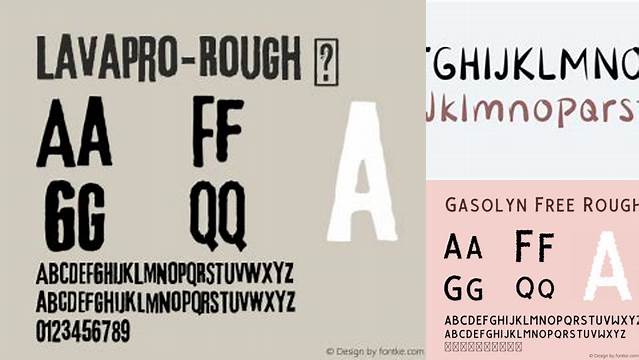
Lava Pro Rough Font Free Download: A Complete Guide
Lava Pro Rough Font, a captivating typeface, has become a popular choice for designers and creatives seeking a bold and textured aesthetic. This article will delve into everything you need to know about the Lava Pro Rough font, including its features, how to get it through a free download, and how to effectively use it in your projects. We will also touch on the font's licensing, alternative options, and some design tips to help you make the most of this unique font. So, if you're looking to give your designs a rugged and visually striking appeal, keep reading, guys!
What is Lava Pro Rough Font?
Lava Pro Rough Font is a distinctive font known for its textured and distressed appearance. This typeface is a variation of the original Lava Pro font, but it features a rough, uneven texture that adds a sense of grit and authenticity to any design. The font's design incorporates elements of industrial and vintage styles, making it suitable for a wide range of creative projects. It's like the cool, edgy cousin of the regular Lava Pro. The rough texture gives it a unique character that can instantly grab attention, whether it's on a poster, a website, or a piece of merchandise. This isn't your typical clean-cut font; it's got personality, a certain je ne sais quoi that speaks volumes. Think of it as the leather jacket of the font world – it adds a touch of rebellious charm to anything it graces. The Lava Pro Rough Font isn't just about aesthetics; it's about making a statement. It's about embracing imperfections and celebrating the raw, unfiltered side of design. This font is fantastic for anyone who wants their work to stand out and make a lasting impression. Its versatility allows it to be used in multiple applications, including headlines, logos, and body text. The distinctive design of the Lava Pro Rough font distinguishes it from other fonts, making it a favorite for projects where you want to express a bold and distinctive personality. This font is great for those who want to be more creative with their projects.
The Lava Pro Rough Font features a wide range of characters, including uppercase and lowercase letters, numbers, and punctuation marks. This comprehensive character set ensures that designers can use it effectively in various design projects without worrying about missing glyphs. This complete character set helps you easily create the text in your projects with all the elements you need. Its accessibility allows you to incorporate it into different types of design work and achieve a unified and professional appearance. The Lava Pro Rough Font is more than just a bunch of letters; it's a complete set of tools designed to give you the creative freedom you deserve. Its comprehensive character set ensures that designers can use it effectively in various design projects without worrying about missing glyphs. It will not limit your ability to produce a beautiful design, from logos to website headers. You can use these fonts for your brand, your website, or any project you want to use. The Lava Pro Rough Font is a powerful tool for designers and creatives because it is flexible and provides the foundation for creativity.
Lava Pro Rough Font: Uses and Applications
Lava Pro Rough Font is a versatile typeface that can be used in various design projects to add a touch of boldness and character. Lava Pro Rough Font is a powerful tool that allows designers to inject personality and flair into their work. Its versatility allows it to be applied in various design projects to improve the overall aesthetic. From logos to website headers, this font can enhance your designs and help create a unique look and feel. Understanding the various applications of the Lava Pro Rough Font helps you unleash your creativity and develop unique designs. Whether you're working on branding materials, digital graphics, or print designs, the Lava Pro Rough Font offers endless possibilities. Because of its rugged appearance, it is perfect for projects that demand a striking and memorable visual style. It's also a great choice when you want to create a sense of authenticity and rawness. The font is useful in many projects, from creating unique logos to designing website headers and body text. Its versatility makes it suitable for use in many projects. The unique appearance of the Lava Pro Rough Font helps you make your projects stand out and leave a lasting impression.
Logo Design is one of the main areas where the Lava Pro Rough Font truly shines. Because of its strong and distinctive appearance, it is the perfect font to use in logos for businesses that want to communicate a strong and tough brand identity. The font's textured look adds a sense of ruggedness and authenticity, making it suitable for a wide range of industries. For example, it is an excellent choice for brands in the outdoor, adventure, and fashion industries. Its unique appearance can immediately establish your brand and grab people's attention. Using the Lava Pro Rough Font in logo design is a great way to express a brand's personality and uniqueness. The bold appearance of the Lava Pro Rough Font is a great way to improve brand recognition. Its distinctive appearance guarantees that your logo stands out from the competition. The Lava Pro Rough Font is a powerful design asset that gives your brand a competitive edge by enhancing brand identity and making a strong impression on your audience. The Lava Pro Rough Font is the ideal option for logo design, helping you to develop a brand that is memorable, tough, and unforgettable.
Website Headers and Titles are other areas where the Lava Pro Rough Font can be used to great effect. Using the font for website headers and titles can quickly draw visitors' attention and establish a strong visual hierarchy. The font's unique appearance makes it perfect for headlines that are meant to stand out, such as blog posts or page titles. Its textured appearance provides a visual appeal, making it an excellent option to create an impression and show the website's personality. In addition to drawing attention, using the Lava Pro Rough Font for website headers and titles can also help your website develop a consistent and eye-catching brand image. This font creates a memorable and coherent brand identity. With the Lava Pro Rough Font, you can transform any website header or title into a visual statement, making it more engaging and memorable. Its ability to draw immediate attention is important when trying to capture readers' interest on a website. This font gives websites a bold, contemporary look that attracts attention and helps them stand out from the competition. It is the perfect way to create website headers and titles that are aesthetically beautiful and promote a strong and recognizable online presence.
Design Tips for Using Lava Pro Rough Font
To effectively use the Lava Pro Rough Font in your design projects, consider these design tips. They help improve your use of this font and help you get the most out of your design. Understanding the nuances of the font will enhance your work. Make sure the use of the Lava Pro Rough Font complements your general design aesthetic.
Pairing Fonts is important. It is important to think about font pairing, which can help you create a cohesive and aesthetically pleasing design. This involves combining the Lava Pro Rough Font with other complementary typefaces to balance boldness and readability. You should select fonts that contrast nicely to achieve a visually pleasing outcome. Consider combining the Lava Pro Rough Font with a cleaner, simpler font for body text to improve readability. The combination of these fonts provides a clear visual hierarchy that helps guide viewers. When designing, you can use these combinations. This ensures that the boldness of the Lava Pro Rough Font does not overwhelm your design. Make sure that your designs look good by using the right font pairs. When selecting fonts, consider the design's overall tone. By matching the Lava Pro Rough Font with fonts that complement it, you can improve your designs and ensure they are visually appealing. This results in designs that are visually balanced and effective.
The Lava Pro Rough Font is a versatile and visually striking typeface that can significantly enhance your design projects. It's a fantastic tool for anyone looking to add a touch of boldness and character to their creative work. By knowing where to get the free download, the best ways to use it, and understanding the licensing conditions, you can effectively incorporate this font into your designs. Remember to always source your fonts from reliable websites and check the license terms before using the font in commercial projects. With its rugged texture and bold appearance, the Lava Pro Rough Font is sure to make your designs stand out. Embrace the font, experiment with different designs, and see how you can revolutionize your designs with the Lava Pro Rough Font! Happy designing, folks!